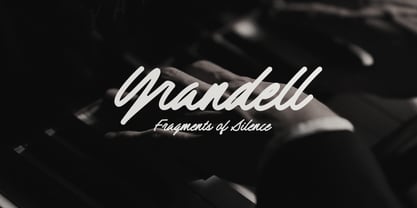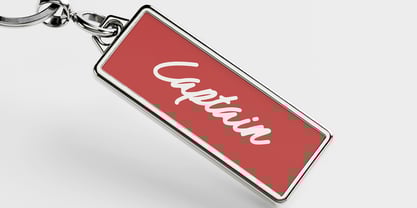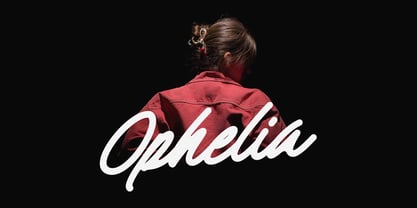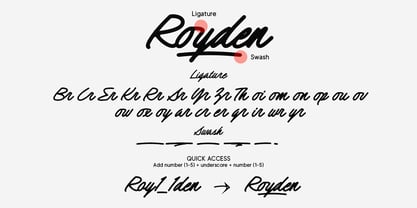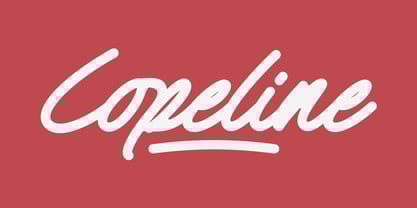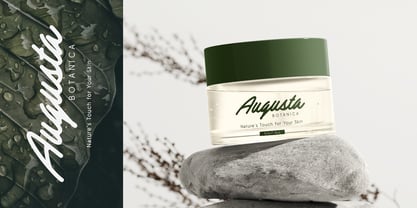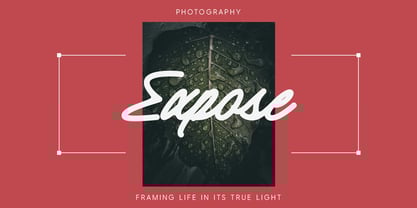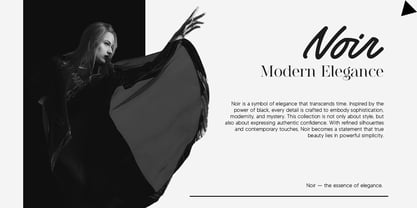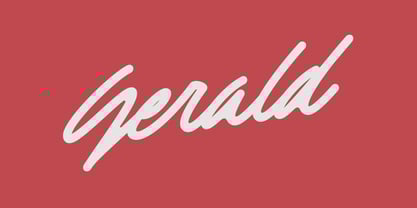
Copeline
by Lemonthe
The Copeline Font Family was designed by Dwi Ahidian and published by Lemonthe. Copeline contains 1 styles. More about this family
Copeline comes as a bold monoline script that delivers a strong yet stylish impression. Each letter is designed with consistent strokes, making it highly legible without losing aesthetics. Equipped with swash and ligature features, this font is perfect for logos, branding, packaging, signage, poster headlines, wedding, labels and modern digital identities.
Designers: Dwi Ahidian
Foundry: Lemonthe